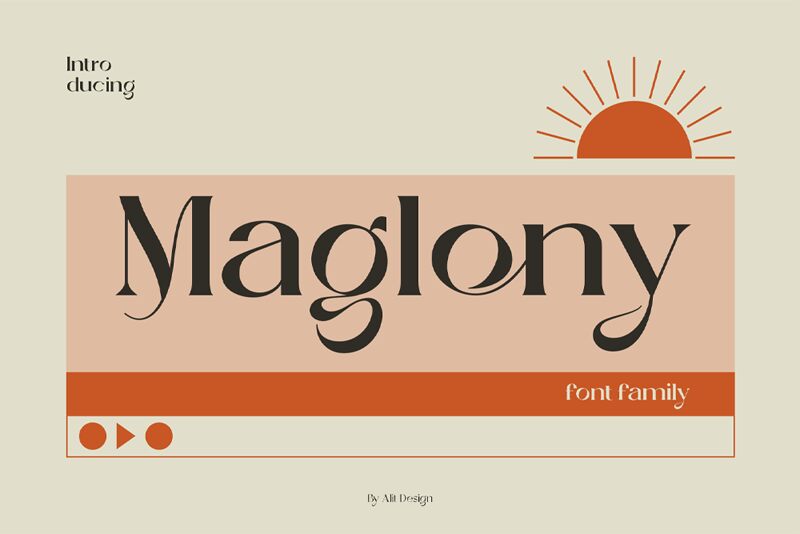
Maglony, the vintage serif font by Alit Design, exudes an air of sophistication and elegance. With its semi-light weight, it strikes the perfect balance between being legible and having character. The tall x-height and beautiful curves make it ideal for designs that aim to evoke nostalgia or a sense of timelessness. Maglony's versatility makes it a suitable choice for various projects ranging from branding and packaging to editorial design and advertising. Use this semi-light font to add a touch of class to your designs while maintaining readability - whether you're creating brochures, menus, or even wedding invitations.